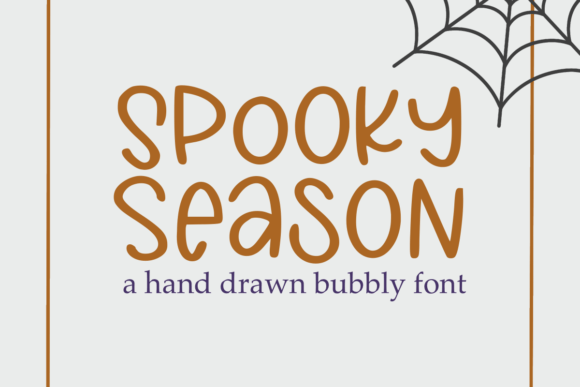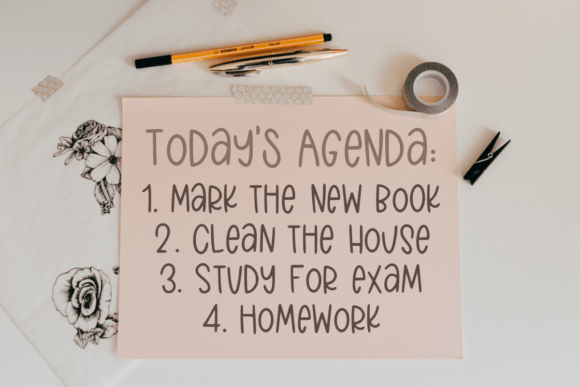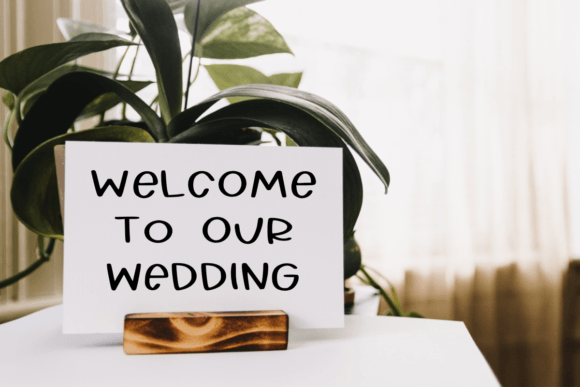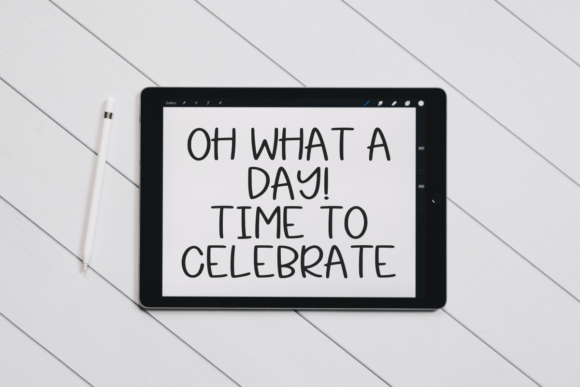
Spooky Season Font
About Spooky Season Font
“Spooky Season” is a cute and friendly handwritten font that adds a playful and delightful touch to your design projects. This font captures the spirit of fun and excitement associated with the spooky season, making it a perfect choice for creating festive and engaging designs.
The font’s friendly style is characterized by its whimsical and approachable characters. It conveys a sense of lightheartedness and joy, making it ideal for projects that celebrate the Halloween season or any other occasion that calls for a fun and playful look. “Spooky Season” infuses a sense of delight and creativity into your designs, taking them to new heights.
In the world of design, fonts play a significant role in setting the mood and visual identity of a project. “Spooky Season” excels in these aspects by offering a handwritten font that is both cute and full of character. Its playful aesthetics make it suitable for a variety of design applications.
In summary, “Spooky Season” is a font that embodies the spirit of fun and celebration, making it an excellent choice for enhancing your creative projects. Whether you’re working on Halloween-themed designs or any project that requires a touch of whimsy, “Spooky Season” is the font that can help you take your projects to the highest levels of creativity and engagement.